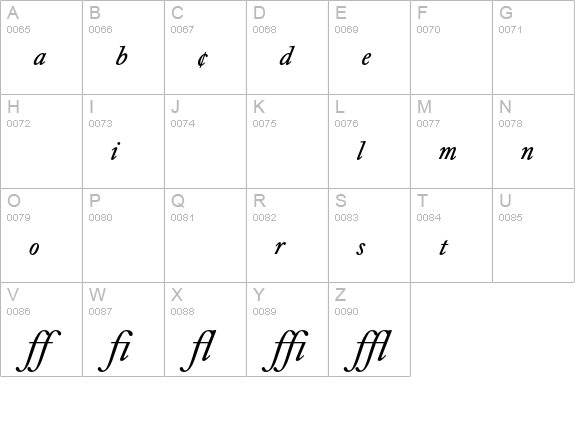
Caslon Book BE Italic Expert is a comfortable, highly readable, italic variant in the Caslon typeface family \xE2\x80\x94 well suited to long-form body text, articles, and editorial content.
Caslon Book BE Italic Expert font is a beautiful and elegant typeface that exudes sophistication and timeless charm. With its delicate, flowing curves and classic style, this font is perfect for adding a touch of elegance to any design project. The italic style of Caslon Book BE adds a sense of dynamism and movement, making it ideal for conveying a sense of creativity and energy. Whether you are working on a book layout, branding design, or any other project that requires a touch of finesse, Caslon Book BE Italic Expert font is sure to elevate your work to the next level. The expertly designed characters and intricate details of this font make it stand out from the crowd and capture the attention of your audience. The best part? Caslon Book BE Italic Expert font is available for free download at FontsMarket.com. So you can enhance your designs with this stunning typeface without breaking the bank. Don't miss out on the opportunity to elevate your design projects with the elegance and sophistication of Caslon Book BE Italic Expert font.